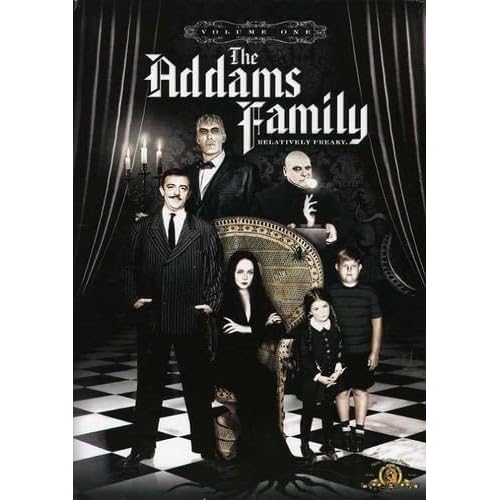
Blackletter in Film/TV Shows: Know any?
I’ve been searching around trying to find film or television shows that use blackletter in their title but can’t seem to find or think of any that do! The only one I have right now is There Will Be Blood. There must be at least one other that uses blackletter, it can’t be /that/ difficult, can it? Anyway, would really appreciate some other examples.
In the ballpark...
I’d suggest browsing the gothic/horror/nazi sections of your video store/Amazon.com/IMDB and you’re bound to hit a few examples.
Any my favorite - reminds me of my last job...
Another one, from Ralf’s Flickr stream: Harsh Times.
Not a TV show’s title, but still interesting: the knee-jerk reaction of German news to fall back on poor Fette Fraktur when it comes to illustrate obnoxious topics: Rassismus, Hooligans (found by Judith Schalansky).
This was a Blackadder special from 1999: Blackadder: Back & Forth
I don’t think any of the original Blackadder TV series used blackletter for the titles, though there is some attempt at evocation of historical type styles.
The Addams Family